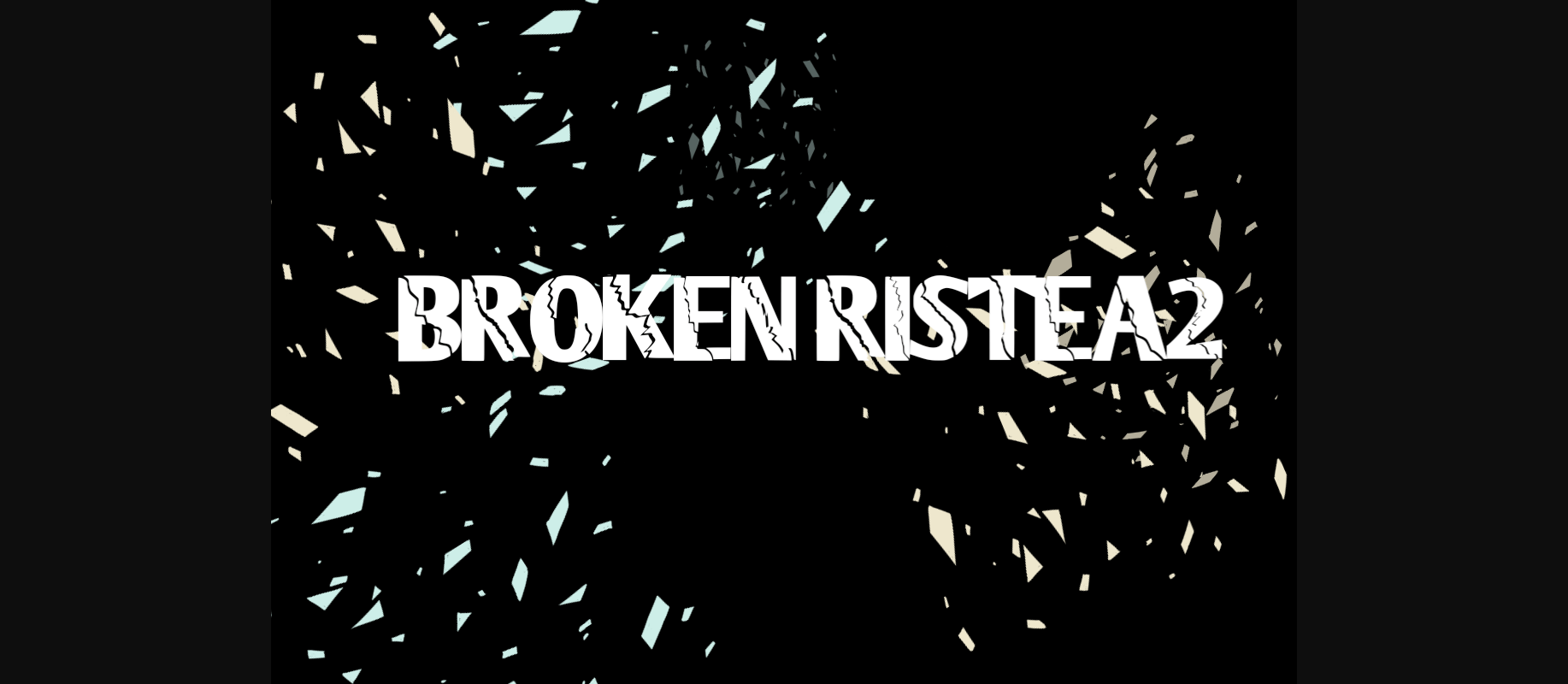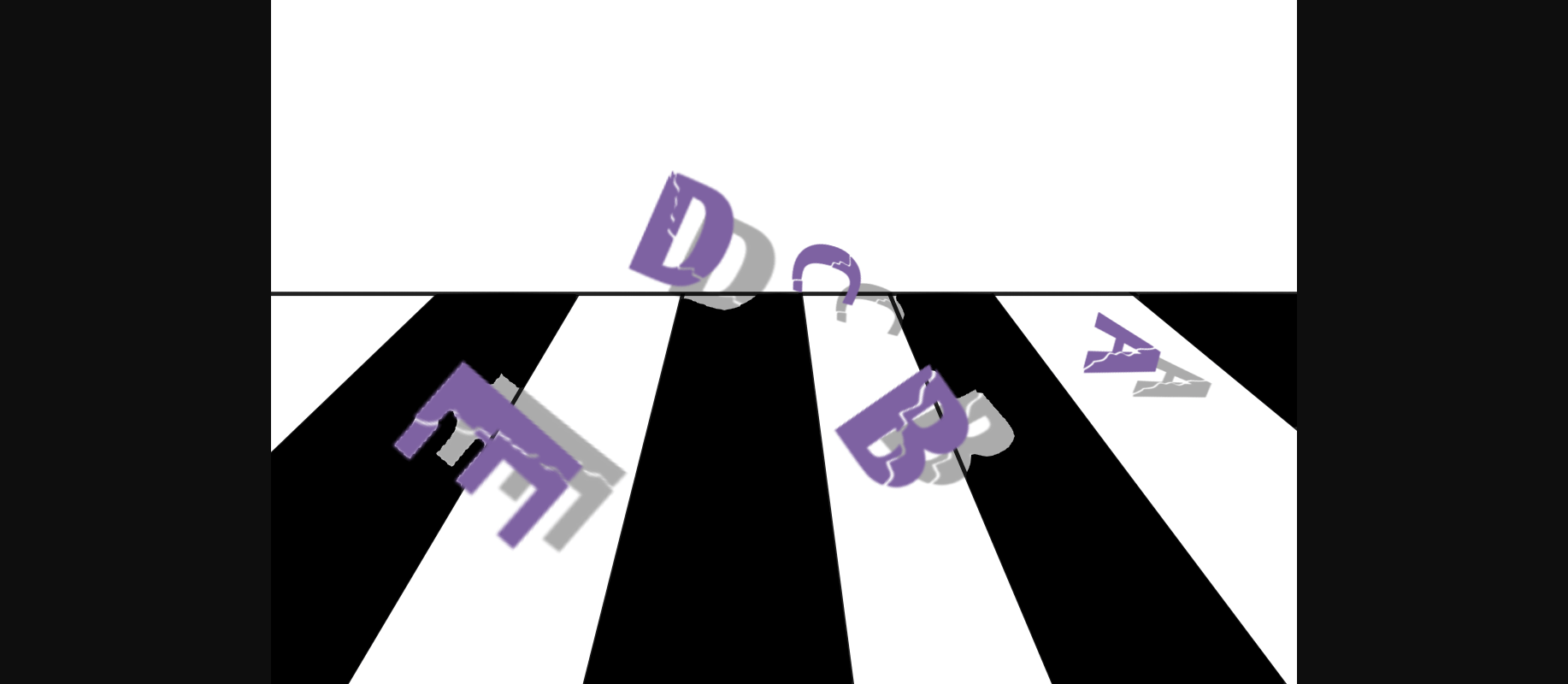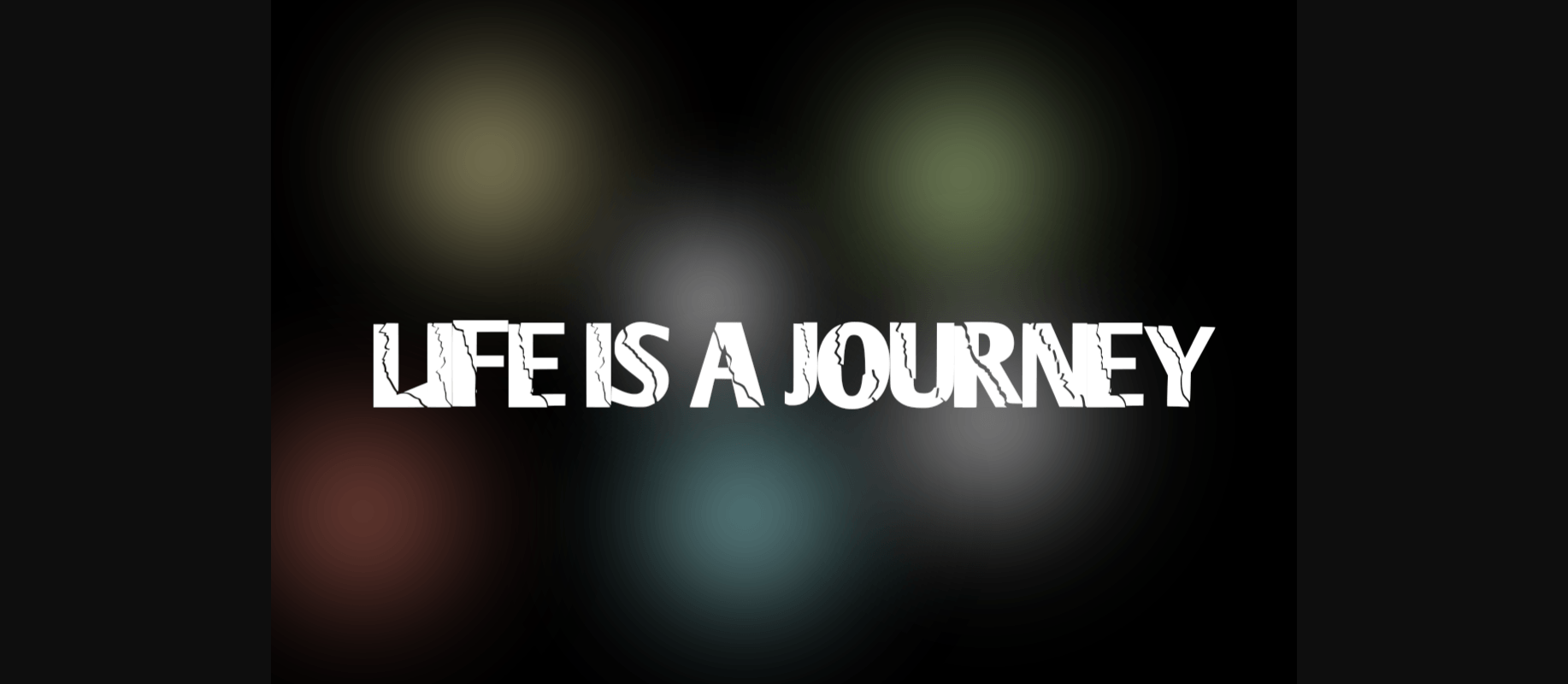
HomeDecorative FontsBrokenristea2 Font Decorative Fonts Brokenristea2 Font FacebookXPinterestWhatsApp 1 of 5 ... Brokenristea2 Font Poster 2... Brokenristea2 Font Poster 3... Brokenristea2 Font Poster 4... Brokenristea2 Font Poster 5... About Brokenristea2 Font This second edition of the broken effect font will make your billboard even more attractive. Give it a try and be create something spectacular! DOWNLOAD NOW People also explored Sansdiego Font Handricks Font Bis Spater Font Soutralia Signature Font moonttella Pumpkin Cookies Font Wonder Melody Font Beach White Font Swally – Brush Script Font 267 0 TagsBrokenristea2 Font Previous articleFamily FontNext articlePool Ball Font LEAVE A REPLY Cancel reply Comment: Please enter your comment! Name:* Please enter your name here Email:* You have entered an incorrect email address! Please enter your email address here Website: Save my name, email, and website in this browser for the next time I comment. Personal Use Free Sushi Day Personal Use Free Read more about this font Barokah Personal Use Free Read more about this font Butter Belly Personal Use Free Read more about this font Tide Personal Use Free Read more about this font BLOG How to Install and Use Fonts on Windows, macOS, and Web Projects How to Install and Use Fonts on Windows, macOS, and Web Projects Fonts are a crucial part of design and branding. Whether you’re designing a... Free Fonts Risk: Why Free Fonts Can Be Dangerous for Designers Best Fonts for T-Shirt Design – Top 2025 Picks Exploring Font Trends